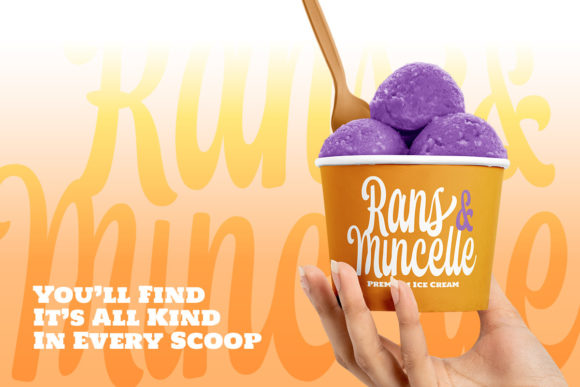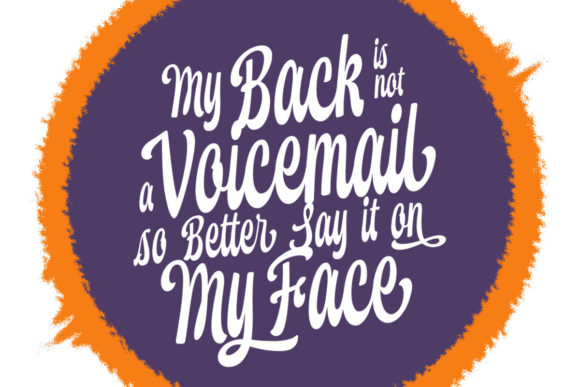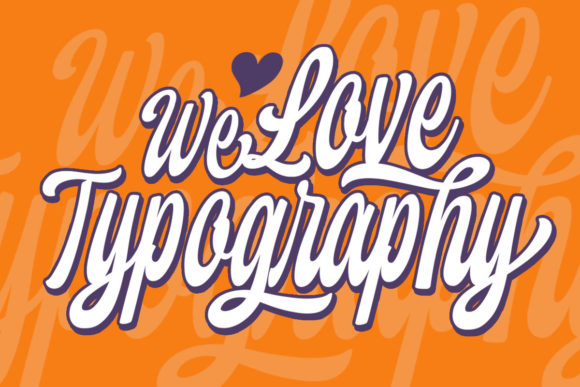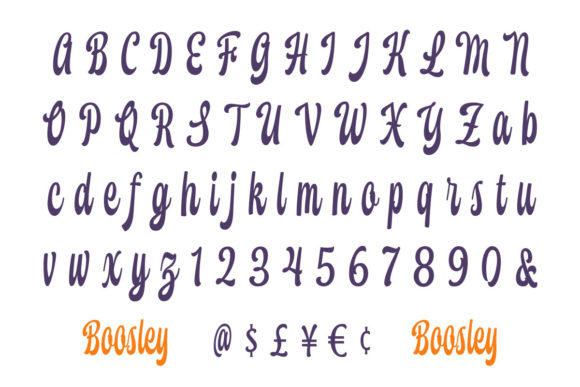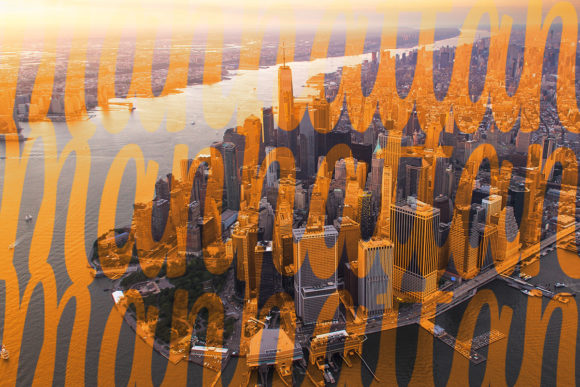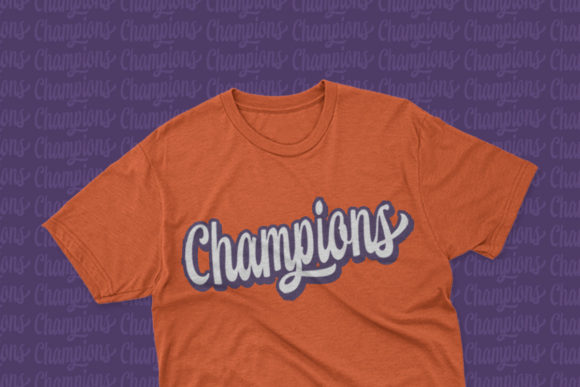
The Perfect Blend of Vintage Charm and Modern Flair: Introducing the Boosley Font
Remember the thrill of stumbling upon an old, dusty typewriter in a thrift store, its keys worn and weathered from years of use? The tactile feel of its keys, the sound of its clackety-clack as you typed out your latest creative masterpiece? For designers, there’s something special about capturing that retro vibe in our digital designs.
That’s where the Boosley Font comes in – a bold, handwritten font that adds a touch of nostalgia and sophistication to your headlines and logotype projects. With its confident, dynamic feel, Boosley Font is the perfect choice for designers looking to give their work a stylish, one-of-a-kind touch. Whether you’re crafting a vintage-inspired brand identity or simply want to add some visual interest to your designs, the Boosley Font is a valuable addition to any designer’s toolkit.
- Unique Characteristics: Boosley Font features a distinctive, modern script style with connected letters, making it ideal for creative and artistic applications.
- Font Family: Boosley Font is part of a larger font family, which includes various weights and styles, such as light, regular, bold, and italic, providing designers with a range of options for creative expression.
Boosley Font Review
Overall, I have mixed feelings about the Boosley Font. There are some aspects that I appreciate, but also some that leave me wanting more.
- Unique aesthetic: Boosley Font has a distinct, whimsical feel that sets it apart from other fonts.
- Good for titles and headings: Its bold lines and playful flair make it perfect for grabbing attention in titles and headings.
- Works well for digital media: The font is highly legible even at small sizes, making it suitable for digital applications.
- Limited language support: Unfortunately, the font doesn’t support many languages, which may limit its use in certain projects.
- Not ideal for large blocks of text: Due to its playful nature, Boosley Font can be overwhelming when used for extended passages of text.
- Requires careful pairing: The font’s unique style demands careful pairing with other fonts to avoid visual overload.
Overall, I think Boosley Font is a great addition to any designer’s toolkit, but it should be used judiciously. Its unique aesthetic and legibility make it perfect for specific applications, but its limitations should not be overlooked.
Getting the Most Out of Boosley Font
For optimal results, use the Boosley font in conjunction with bold or italic text to add emphasis.
Also, consider pairing the Boosley font with a clean and simple background to let the font be the focal point.
The Boosley font is ideal for:
Restaurant menus and branding
Magazine and newspaper headlines